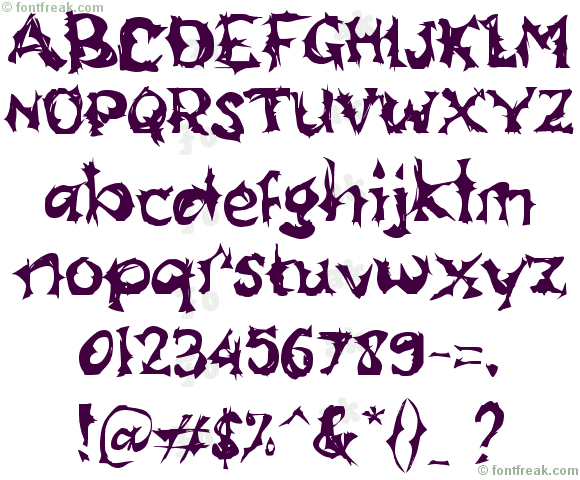
BATMAN ROBINSON
About BATMAN ROBINSON
The BATMAN ROBINSON font, created by Wahyu Eka Prasetya, is a striking display typeface that embodies an adventurous spirit reminiscent of classic comic book aesthetics. This font is characterized by its bold, jagged strokes that create a dynamic and edgy appearance, perfect for capturing attention. The contrasting weights and irregular shapes lend a playful yet rebellious vibe, making it ideal for projects that aim to evoke excitement and nostalgia.
With its unique visual characteristics, BATMAN ROBINSON features sharp angles and a rugged texture, giving it an almost three-dimensional quality. The spacing between letters is intentionally designed to enhance readability while maintaining a sense of artistic flair. Decorative elements are present throughout the typeface, amplifying its comic book inspiration and providing a distinctive look that stands out in various applications.
This font is particularly well-suited for a range of creative uses. It shines on movie posters, bringing a dramatic flair to film titles and promotional materials. The BATMAN ROBINSON font can also be used effectively in graphic novels or comic strips, where its bold nature enhances storytelling through visuals. Additionally, it can make for eye-catching branding on merchandise or event flyers for themed parties. Small business owners looking to create unique signage will find this font adds a memorable touch to their marketing materials.
Targeted towards graphic designers, content creators, and small business owners, this font offers a free download option, making it accessible for various projects. With its combination of creativity and versatility, the BATMAN ROBINSON font stands out as a compelling choice for anyone looking to infuse their designs with a sense of adventure and fun. Embrace the boldness of the BATMAN ROBINSON font free download and elevate your next project with its distinctive character.